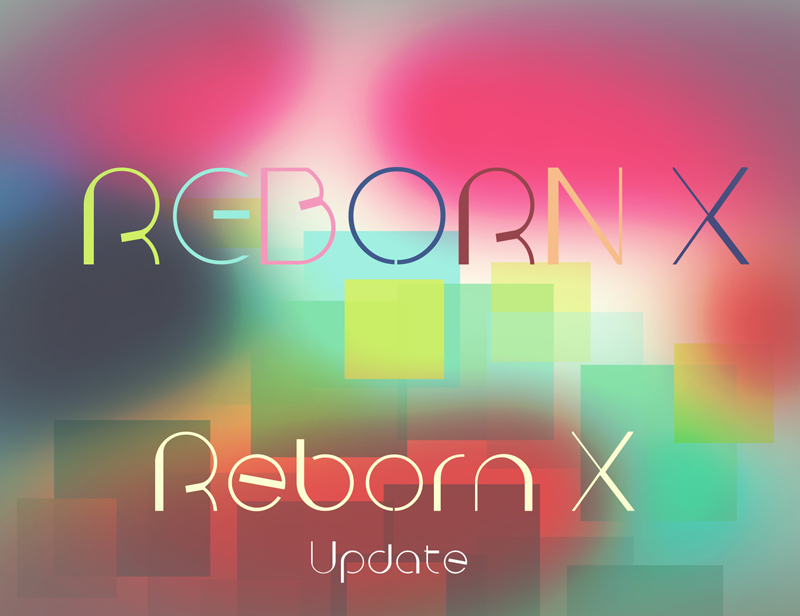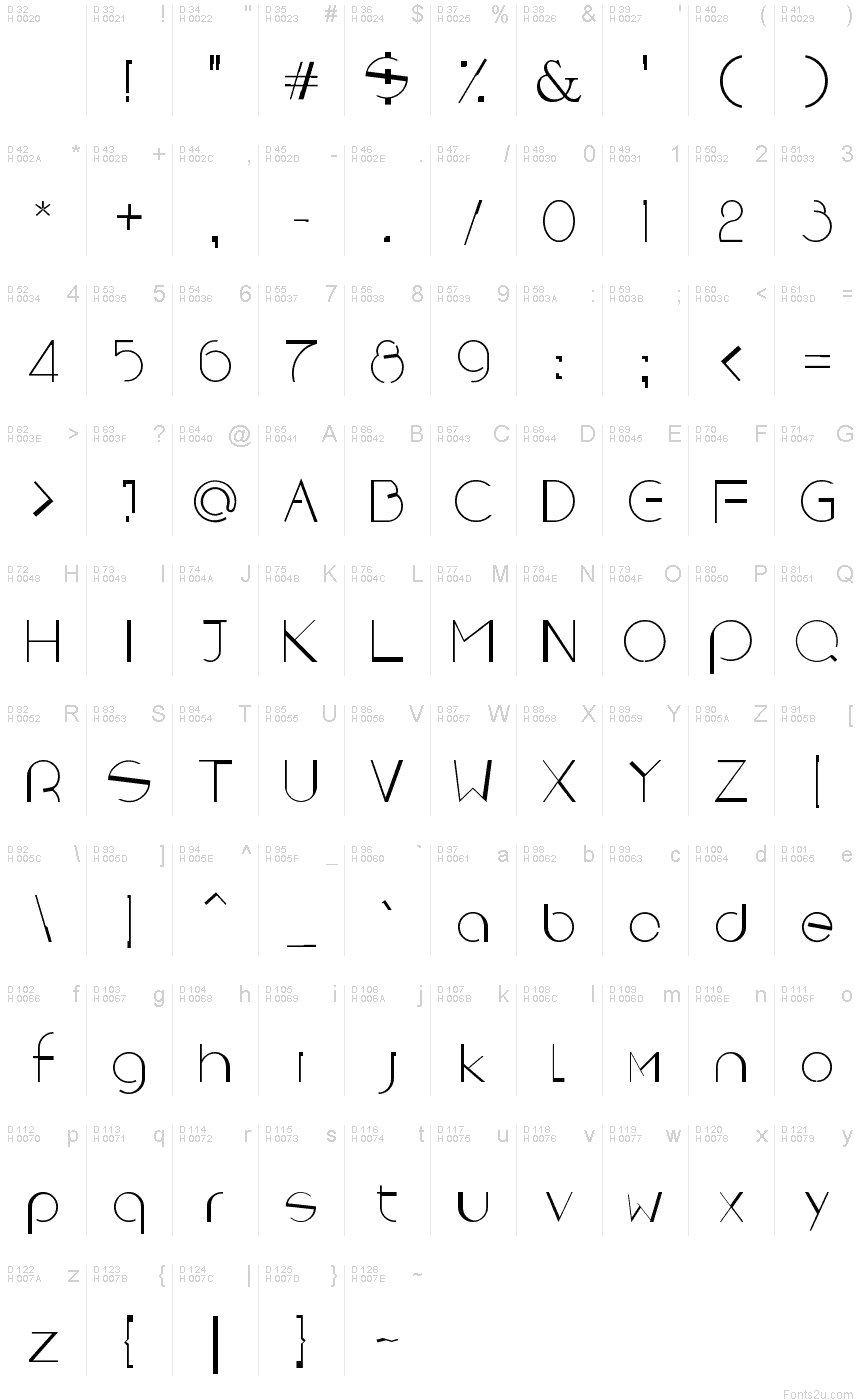
RebornX
Reborn X is a free retro display font with the sleek geometry of late Art Deco lettering. Tall, airy forms mix hairline curves with broad vertical strokes, and sharp diagonals give the rounded alphabet an architectural edge.
Fashion and nightlife designers will appreciate its elegant eccentricity. It suits magazine covers, event posters, and boutique packaging when a refined period reference matters more than neutrality. The changing stroke widths echo streamlined architecture and can connect the lettering with geometric borders, sunbursts, or stepped decorative patterns.
This font replaces my previous font, Space1, which I created in 2011 while studying graphic design.
All characters have been recreated and are now readable on screen. More characters will be added over the next few weeks.